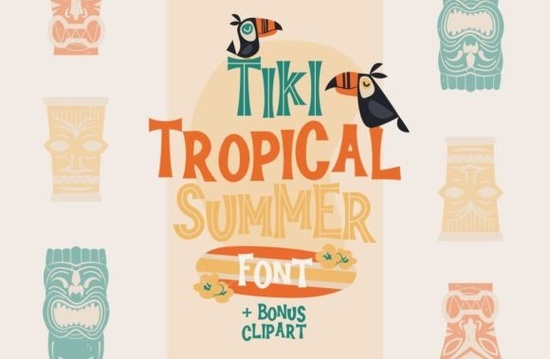
Summer projects call for typefaces that feel warm, fun, and a little bit retro. The Tiki Tropical Summer Font is a mid-century retro display duo that brings that exact vibe with one solid style and one inline style packed into a single download. If you're working on tiki bar invitations, tropical party flyers, summer merch designs, or vintage-inspired branding, this font duo is worth a close look.
What Comes in the Tiki Tropical Summer Font Package?
This isn't just one font it's a duo, which means you get two complementary styles that work together:
- Solid version a bold, filled-in retro display face with that classic tiki-era weight and presence.
- Inline version the same letterforms with carved-in line details, giving a more textured, decorative feel.
Where Does a Mid-Century Tiki Font Work Best?
This style of tiki-inspired display typeface shines in projects where you want that unmistakable retro-tropical feel. Think about designs where bold, playful lettering makes sense:
- Print-on-demand products tiki mugs, tropical-themed t-shirts, summer tote bags, and drink koozies.
- Party invitations and decor luaus, backyard BBQs, pool parties, and summer birthday celebrations.
- Restaurant and bar branding menus, signage, coasters, and social media graphics for tiki bars, beach restaurants, or tropical-themed cafés.
- Small business marketing flyers, posters, and promo materials for summer sales or seasonal events.
- Digital projects YouTube thumbnails, Instagram posts, blog headers, and website banners with a vacation feel.
The mid-century retro aesthetic pairs especially well with sunset color palettes, palm leaf textures, and vintage surf artwork. If you're building a visual theme around any of those, this font fits right in.
How Does It Compare to Other Retro Display Fonts?
The Tiki Tropical Summer font, on the other hand, leans fully into the playful, laid-back energy of mid-century Polynesian pop culture. The inline variant especially captures that hand-carved, bamboo-sign look that defined the tiki aesthetic of the 1950s and 60s.
Is This Font Easy to Use for Beginners?
One thing to keep in mind: because this is a display font, it's designed for headlines and short text, not long paragraphs. Use it for titles, names, slogans, and short phrases where the personality of the letters can stand out.
Who Will Get the Most Out of This Font?
This font duo is a solid pick for anyone who regularly creates:
- Seasonal or event-based designs with a tropical or retro theme.
- Branding materials for businesses with a fun, casual identity.
- Print-on-demand product designs that need bold, eye-catching type.
- Craft projects like vinyl decals, greeting cards, or party supplies.
- Digital content where a vacation or summer vibe is the goal.
If you run an Etsy shop, sell on Redbubble, or create designs for clients in the food and hospitality space, having a reliable tiki-style font in your toolkit saves time whenever a tropical project comes up.